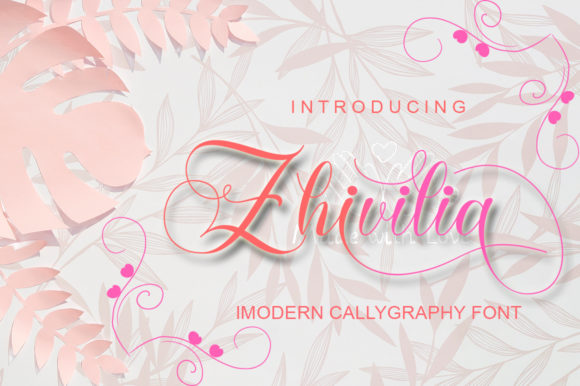
Embark on a typographic journey with Zhivilia Font, the epitome of elegance and sophistication. This exquisite script font will captivate your imagination with its flowing strokes, delicate curves, and enchanting charm.
Step into a world of boundless creativity, where Zhivilia's versatility shines. Its PUA encoding grants you effortless access to a treasure trove of glyphs and swashes, empowering you to unleash your imagination and craft captivating designs.
Zhivilia's varying baseline and smooth lines lend an organic touch to your creations, mimicking the graceful flow of handwritten calligraphy. Each letter dances upon the page, creating a harmonious composition that dances before the eyes.
As a true masterpiece of digital calligraphy, Zhivilia embodies the perfect balance between traditional elegance and modern sensibility. Its timeless appeal will elevate your projects to new heights, whether you're crafting wedding invitations, branding materials, or simply adding a touch of sophistication to your creative endeavors.
Indulge in the allure of Zhivilia, a font that will ignite your passion for typography and inspire you to create designs that leave an unforgettable mark. Embrace the beauty of flowing scripts and elevate your projects to the realm of the extraordinary!